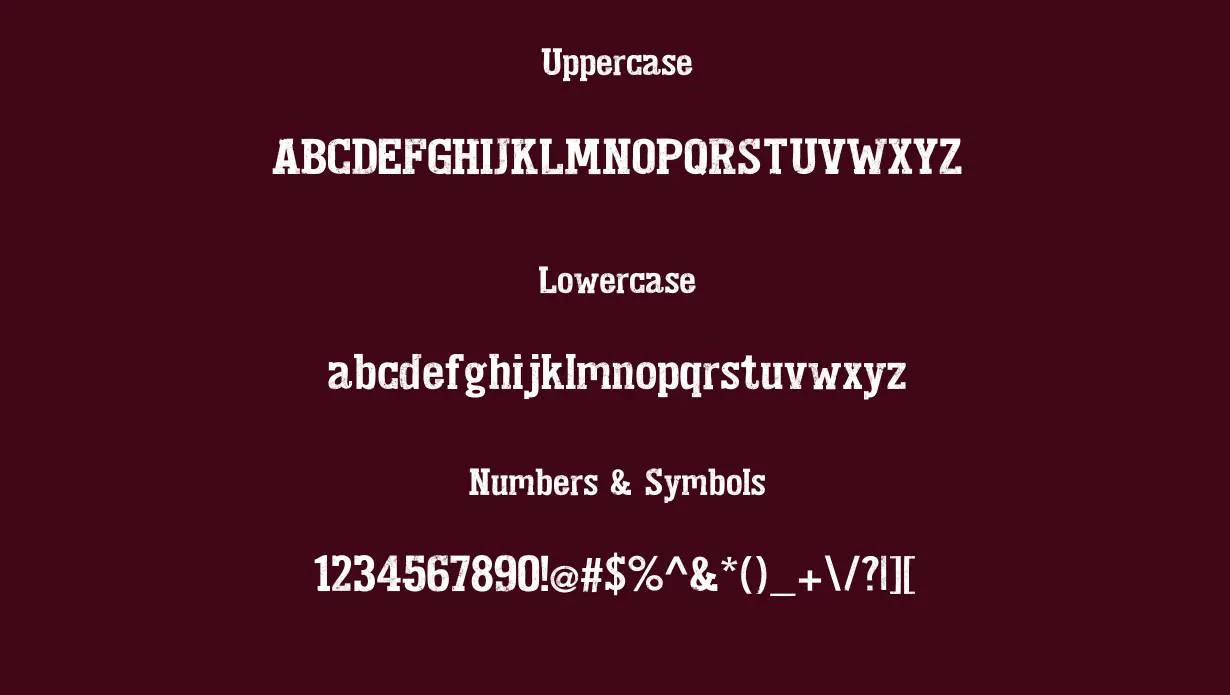
Addison Font is a flexible and easy-to-read font that works well in a variety of design projects.
Its clean lines and contemporary design make it a practical choice for branding, advertising, web design, and packaging, providing a contemporary and well-organized aesthetic to your projects.
| Name | Addison Font |
| Designer | Kimmy Krickwood |